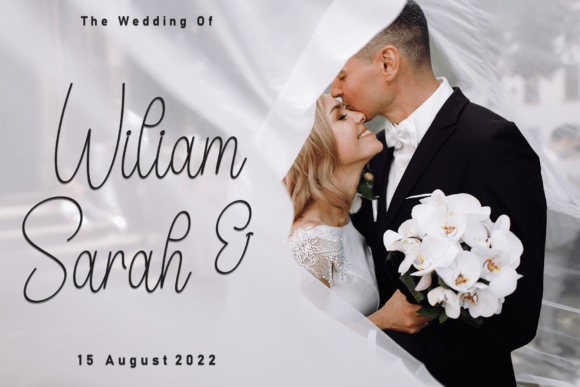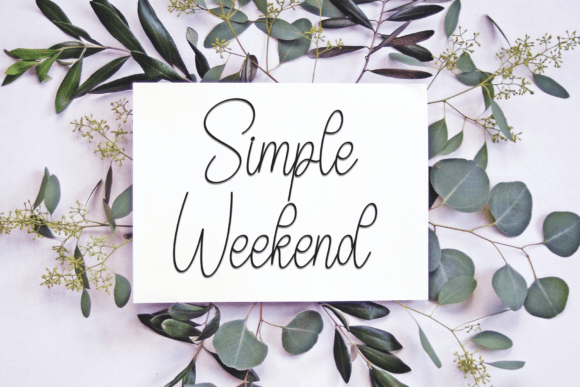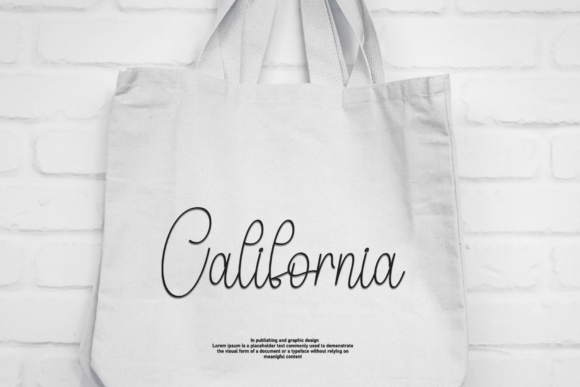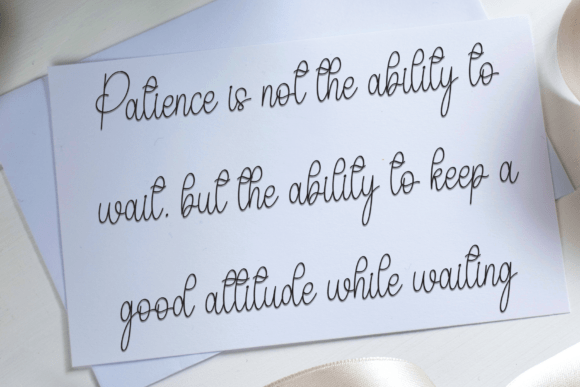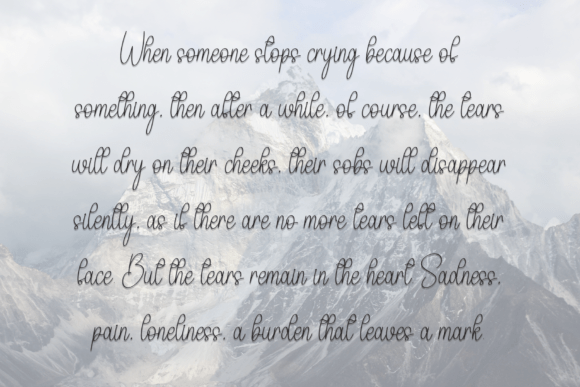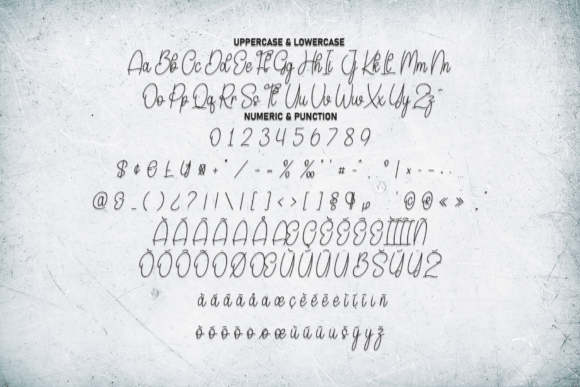
Babyish Font: Add a Touch of Whimsy to Your Designs
Are you looking for a font that can add a dash of warmth and playfulness to your creative projects? Look no further than the Babyish Font, a charming handwritten display font that is perfect for designers and crafters seeking to infuse their work with a touch of whimsy.
What is Babyish Font?
Babyish Font is a delightful handwritten display font that effortlessly exudes warmth and affability. Its sweet and playful elements make it an ideal choice for a variety of design needs, including wedding invitations, greeting cards, and other projects that require a sprinkle of whimsical charm.
Key Features of Babyish Font
- Handwritten Display Font: Babyish Font is a handwritten display font that is designed to add a personal touch to your designs.
- Warm and Affable: The font exudes warmth and affability, making it perfect for designs that require a friendly and approachable feel.
- Sweet and Playful Elements: Babyish Font seamlessly blends a delightful array of sweet and playful elements, making it ideal for designs that require a touch of whimsy.
- Versatile: The font is perfect for a variety of design needs, including wedding invitations, greeting cards, and other projects.
Uses of Babyish Font
Babyish Font is a versatile font that can be used for a variety of design needs. Here are some of the most popular uses of the font:
- Wedding Invitations: The font is perfect for wedding invitations, adding a touch of whimsy and romance to your designs.
- Greeting Cards: Babyish Font is ideal for greeting cards, including birthday cards, baby shower cards, and other celebratory cards.
- Design Projects: The font can be used for a variety of design projects, including brochures, flyers, and other marketing materials.
- Crafting Projects: Babyish Font is also perfect for crafting projects, including scrapbooking, journaling, and other paper crafts.
Benefits of Using Babyish Font
There are many benefits to using Babyish Font in your designs. Here are a few:
- Unique and Eye-Catching: The font is unique and eye-catching, making it perfect for designers who want to stand out from the crowd.
- Easy to Read: Babyish Font is easy to read, even at small sizes, making it perfect for designs that require a lot of text.
- Customizable: The font can be customized to fit your design needs, including changing the color, size, and style.
Babyish Font is a charming handwritten display font that is perfect for designers and crafters seeking to add a touch of whimsy to their work. With its sweet and playful elements, warm and affable feel, and versatility, Babyish Font is an ideal choice for a variety of design needs. Whether you’re creating wedding invitations, greeting cards, or other design projects, Babyish Font is sure to bring a touch of magic to your creations.